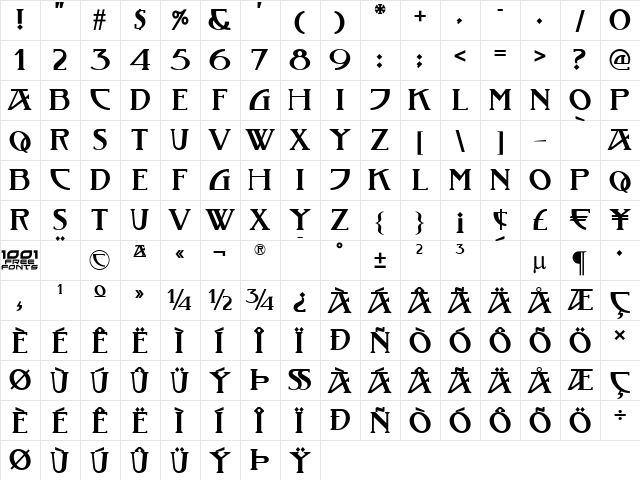
Tobacco Road NF Regular
| Foundry | Nick's Fonts |
| Designer | Nick Curtis |
Design Context for Tobacco Road NF Typeface
Tobacco Road NF is a composed and adaptable typeface that performs quietly and consistently across a wide range of design contexts.